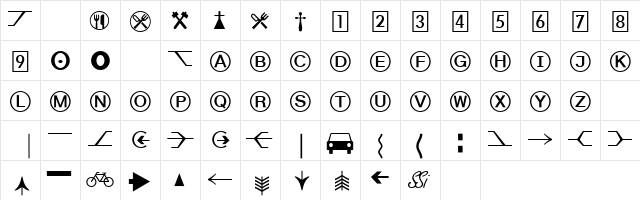
Format Pi Two SSi Regular
Design Context for Format Pi Two SSi Typeface
Format Pi Two SSi offers clean, dependable letterforms without strong stylistic allegiance, making it a practical choice for designers who need flexibility.